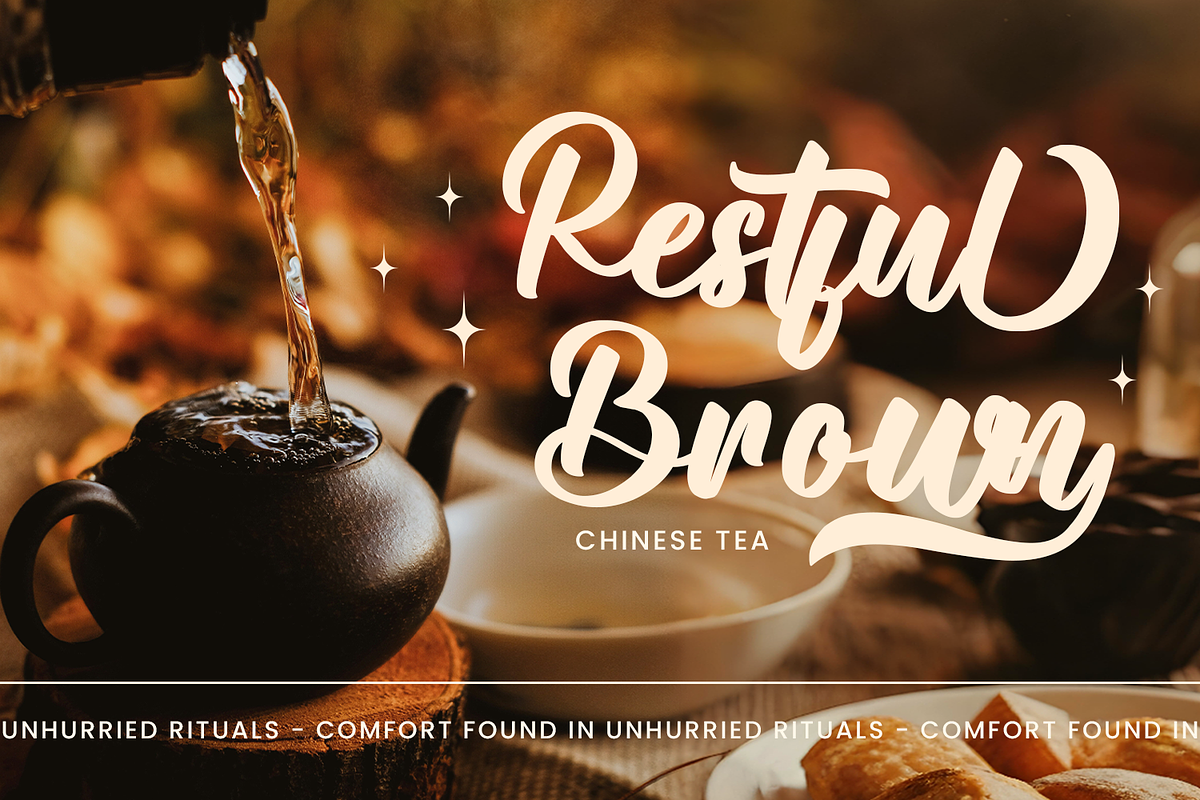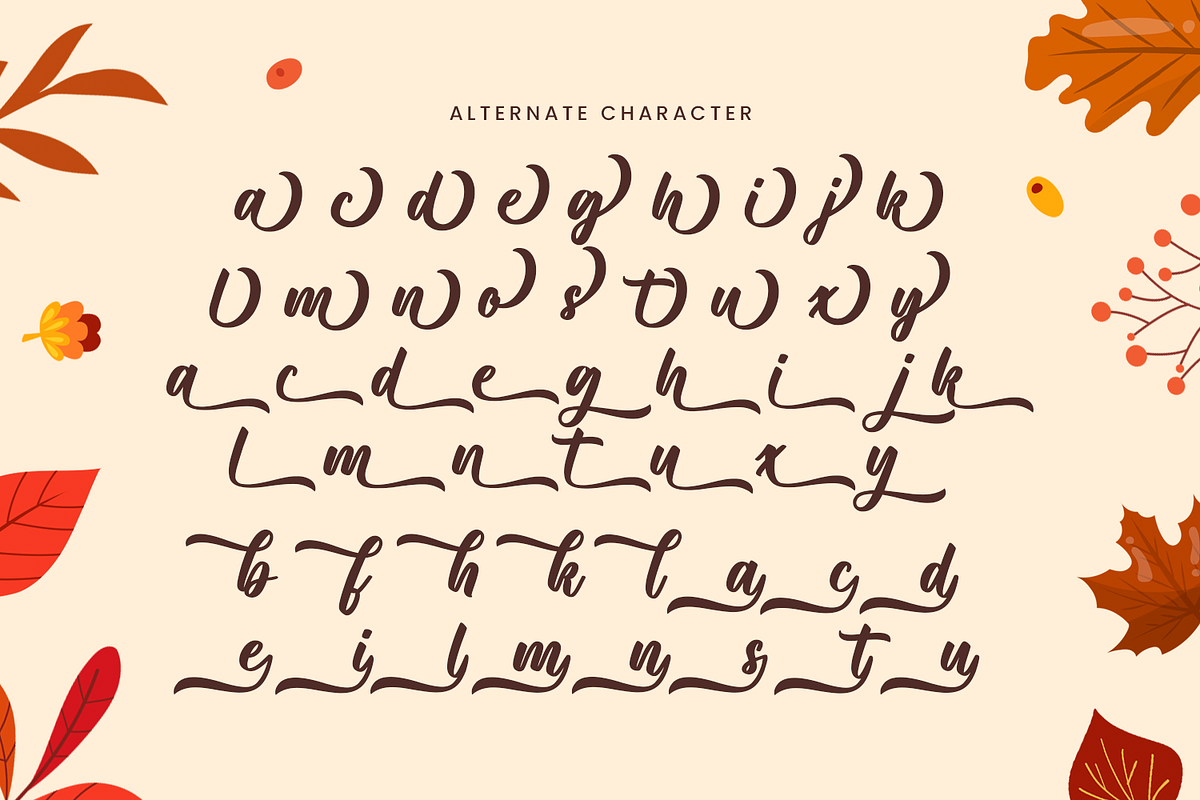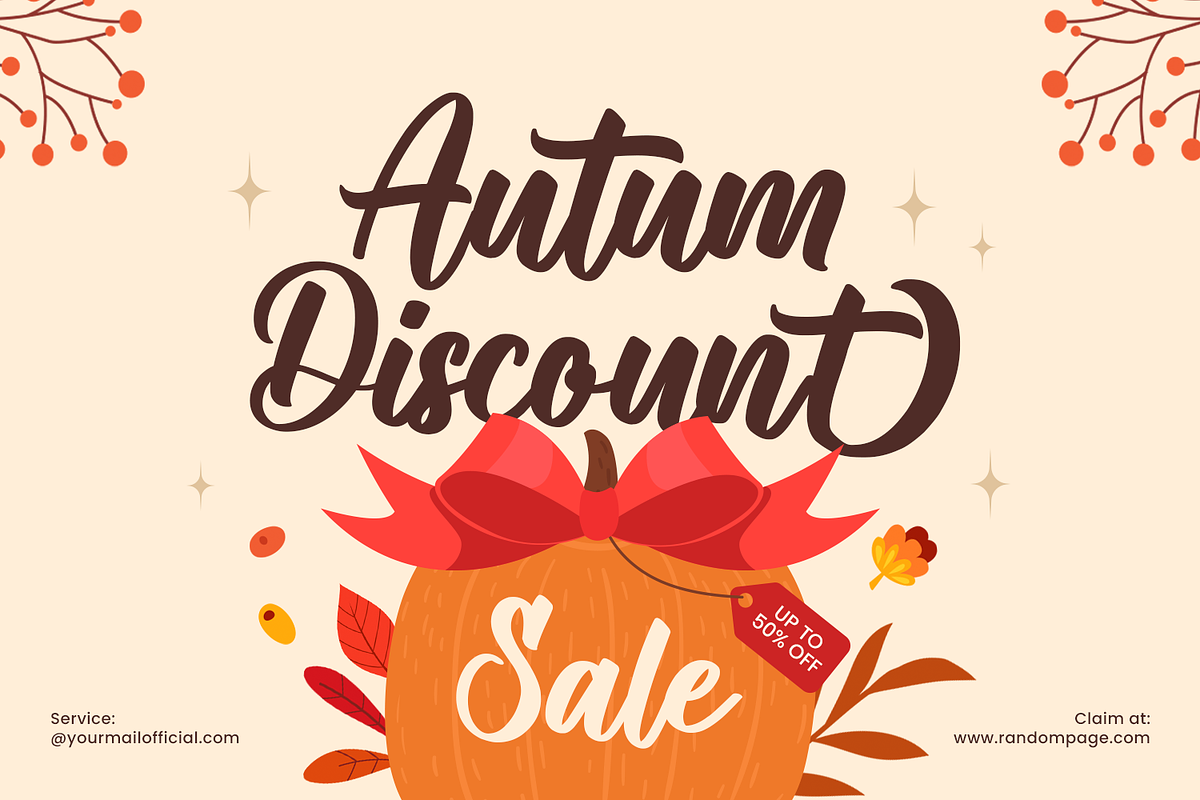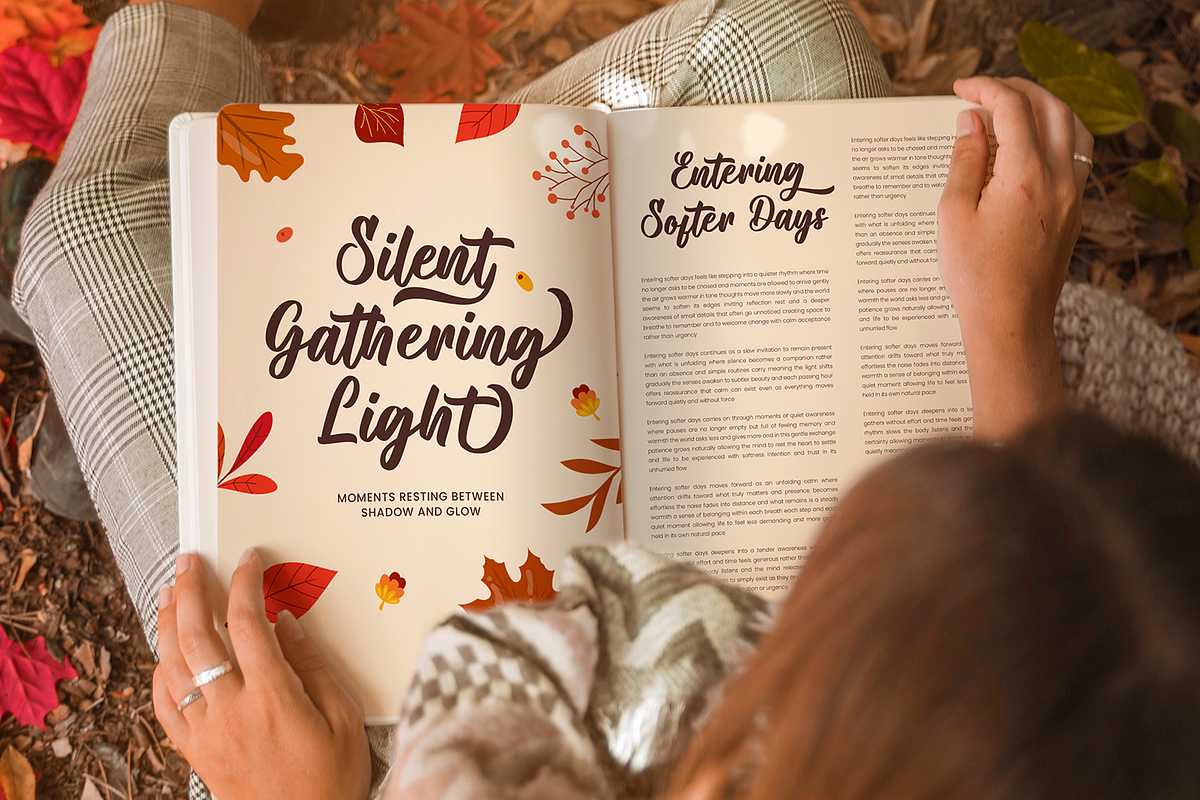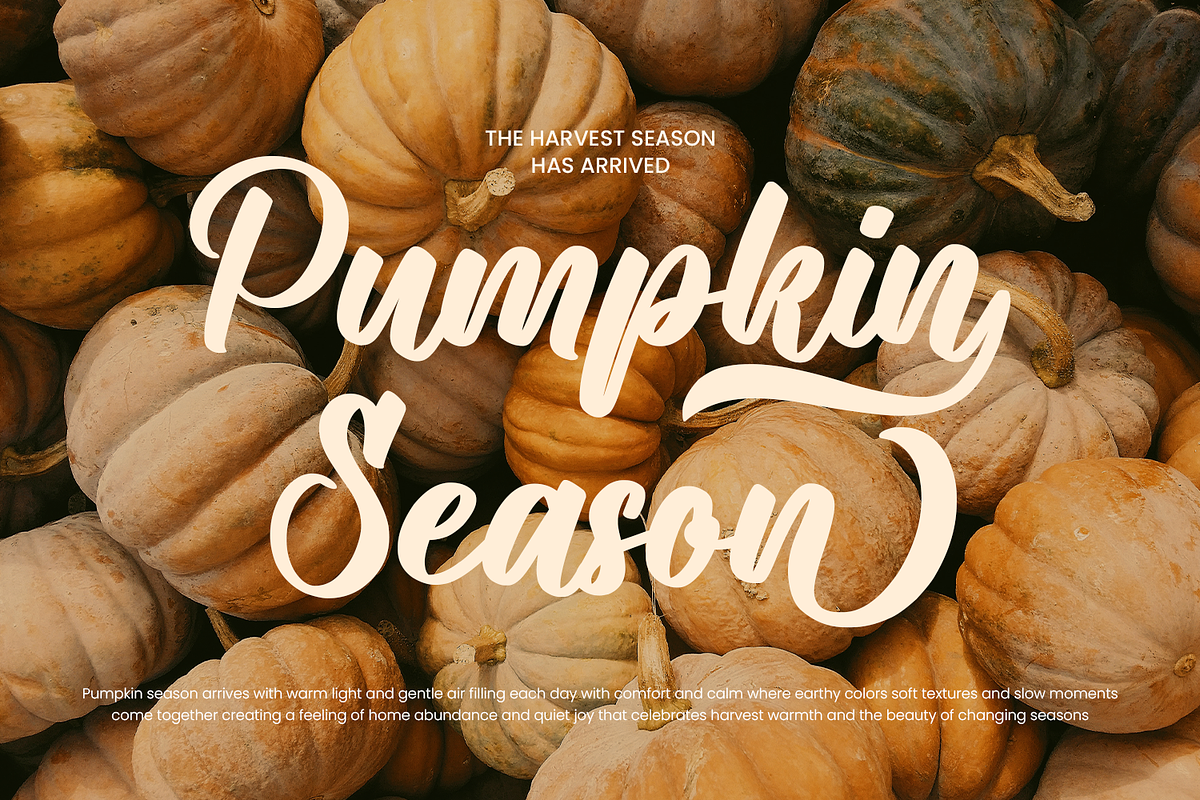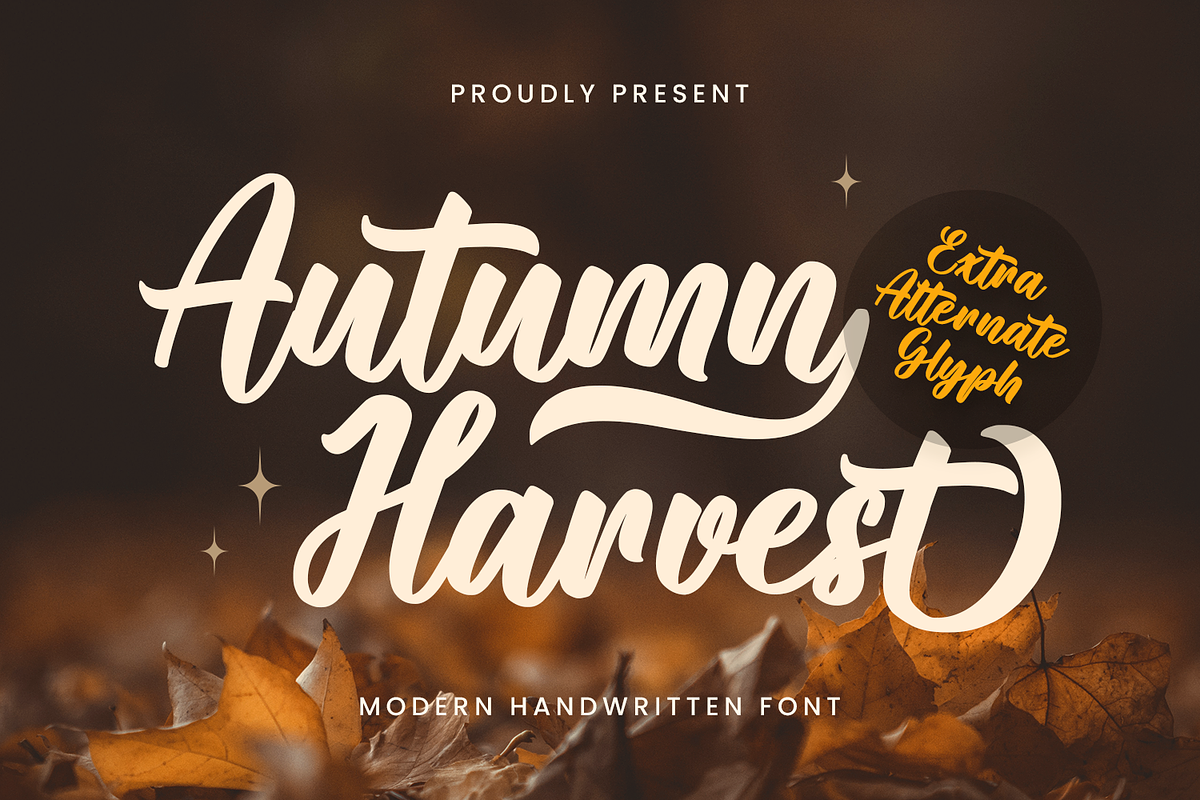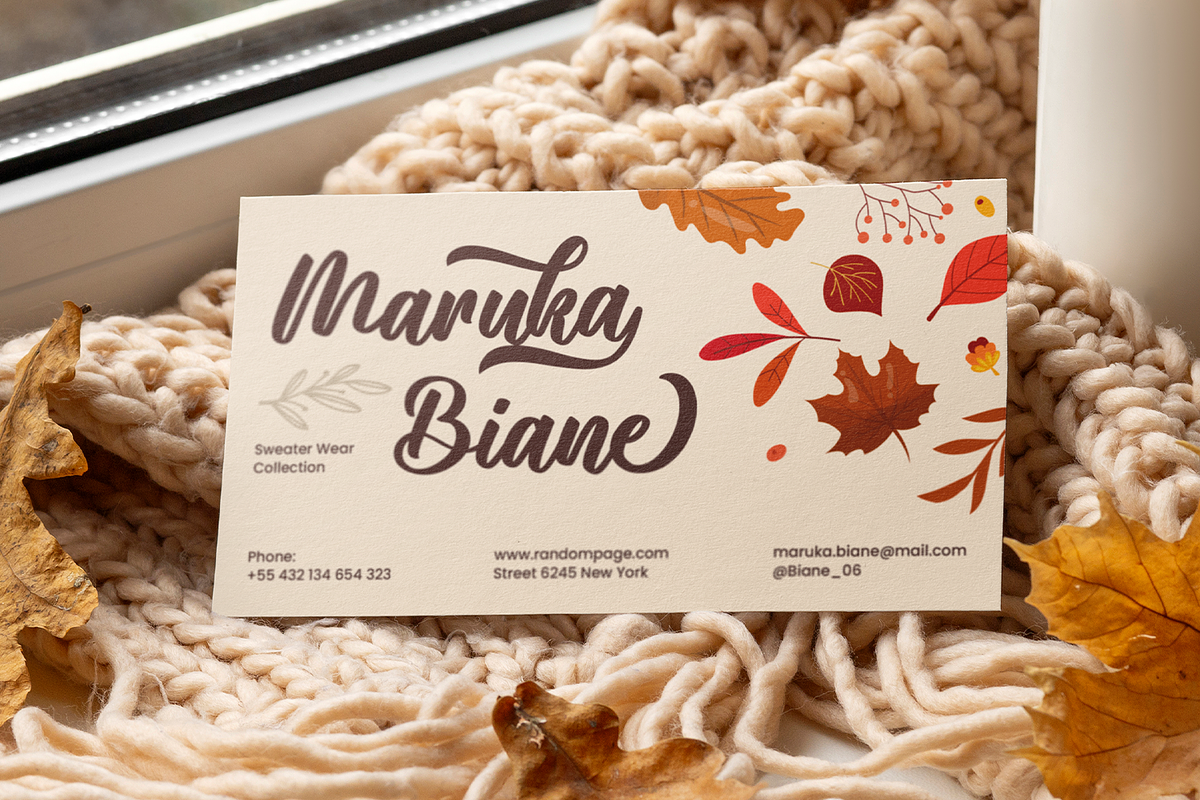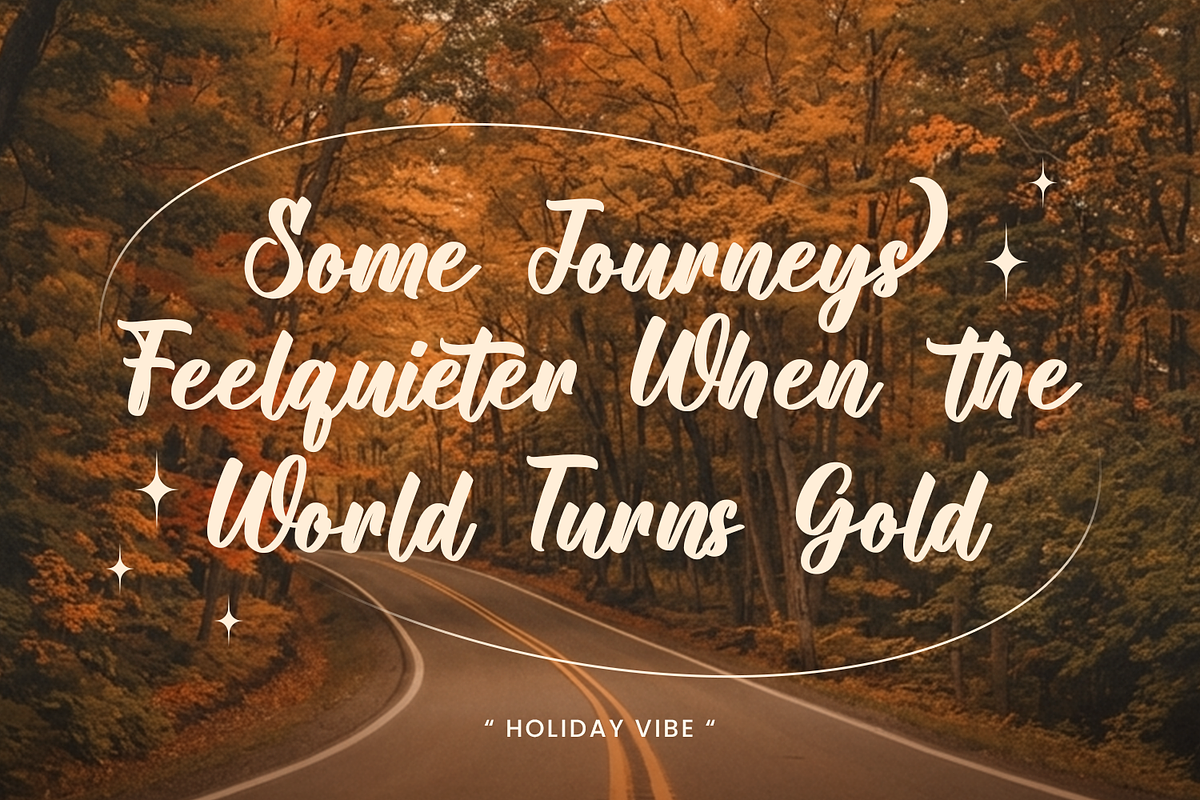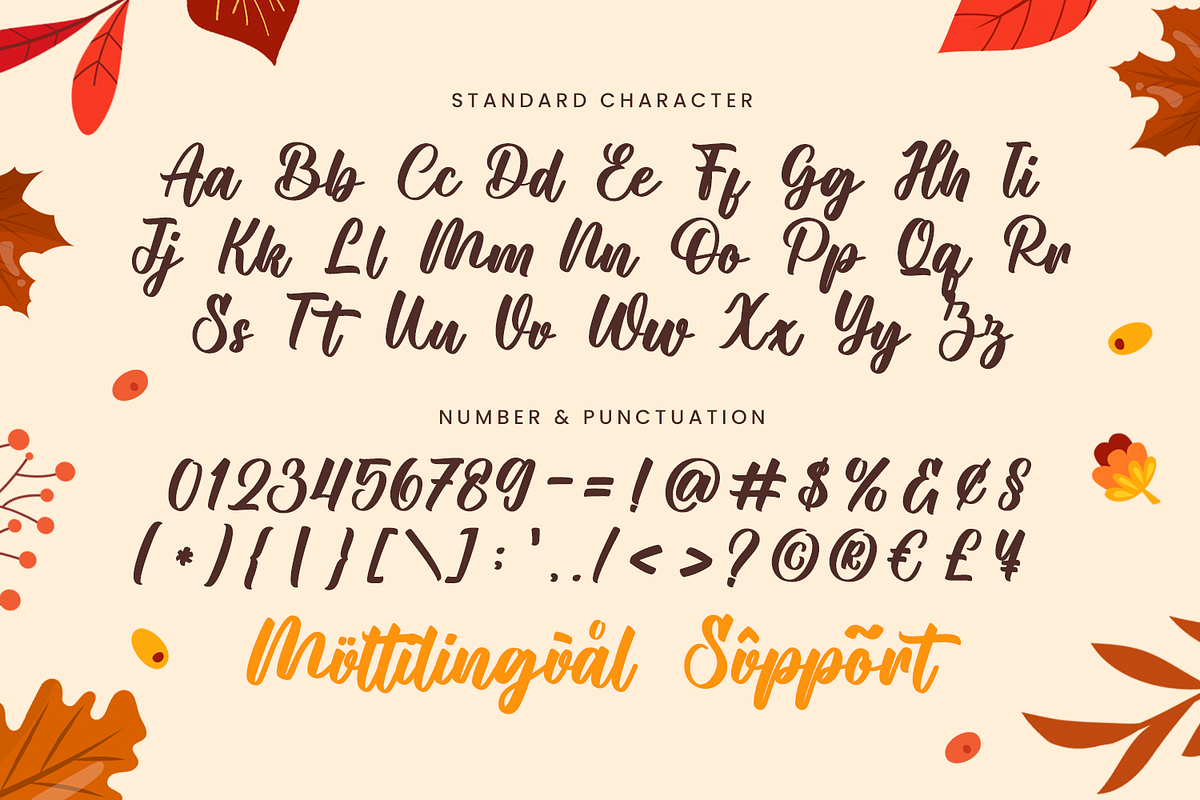
Autumn Harvest
Autumn Harvest is a cute, friendly, and fun script font inspired by the warmth and charm of the harvest season. With soft curves and a handcrafted feel, this font delivers a welcoming personality that feels natural, cozy, and full of character. Its playful yet balanced style makes it suitable for a wide range of creative designs across multiple seasons.
Designed to shine in autumn and thanksgiving themes, Autumn Harvest also adapts beautifully to spring, summer, Christmas, and Easter concepts. The organic letterforms reflect rustic crafts, homemade decorations, and seasonal celebrations, making the font ideal for projects that embrace tradition, creativity, and heartfelt aesthetics.
Autumn Harvest works wonderfully for wedding designs, invitations, birthday cards, and seasonal posters. Its script style adds a nostalgic and cheerful tone that feels both decorative and readable. Whether used as a main headline or a supporting accent, the font brings warmth and personality to every composition.
This font is also perfectly suited for craft projects, Cricut designs, embroidery, lettering art, and SVG-based creations. The bold yet smooth strokes ensure clarity and versatility across digital and physical applications, from handmade goods to printable artwork and decorative signage.
Autumn Harvest is the perfect choice for designs that celebrate seasonal joy, creative expression, and a playful nostalgic vibe—bringing warmth, charm, and festive spirit to every project.